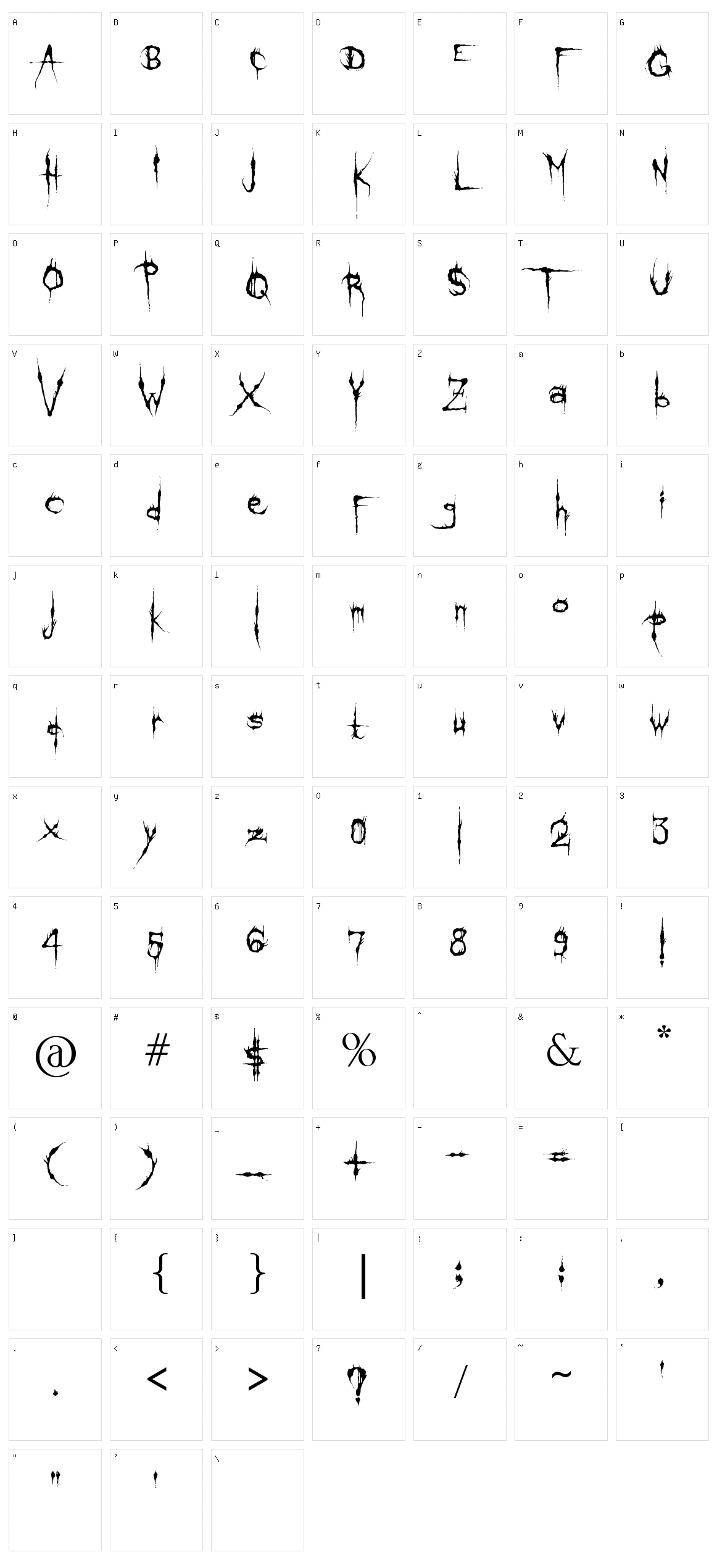
The free font Klinge Death Brush is carefully designed by Klinge Art, showcasing a thoughtful balance of creativity and usability and falls under the Horror font style. When you download the ZIP file, it contains only 93.26 KB of font files, making it lightweight and quick to download. Please review the license details below to understand permitted usage and distribution rights. If license information is not available, we recommend using this font for personal projects only or contacting the author directly for commercial usage permissions.